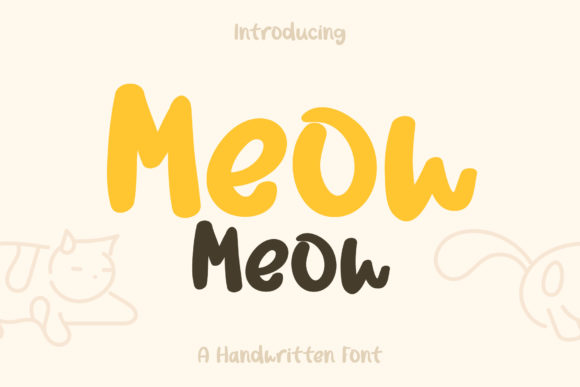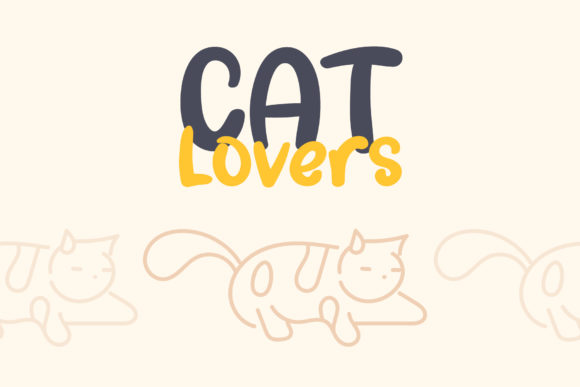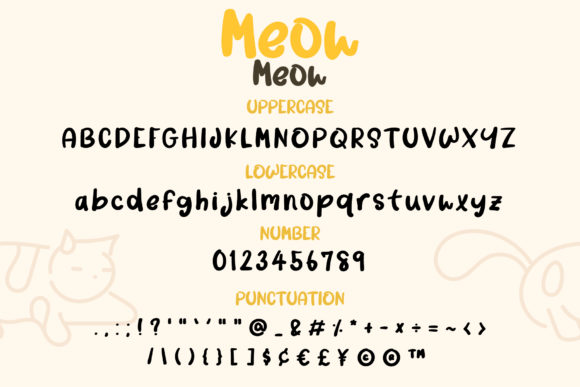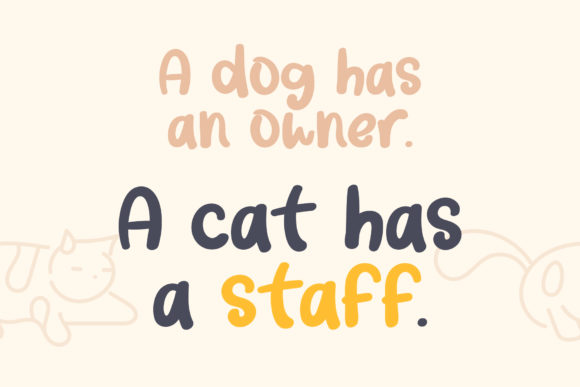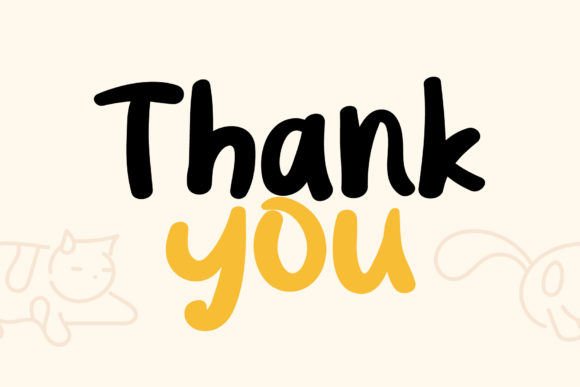
Meow Meow Font
About Meow Meow Font
Meow Meow is a friendly, casual and thick lettered handwritten font. A little bit quirky, this font looks incredibly adept on a wide variety of contexts!